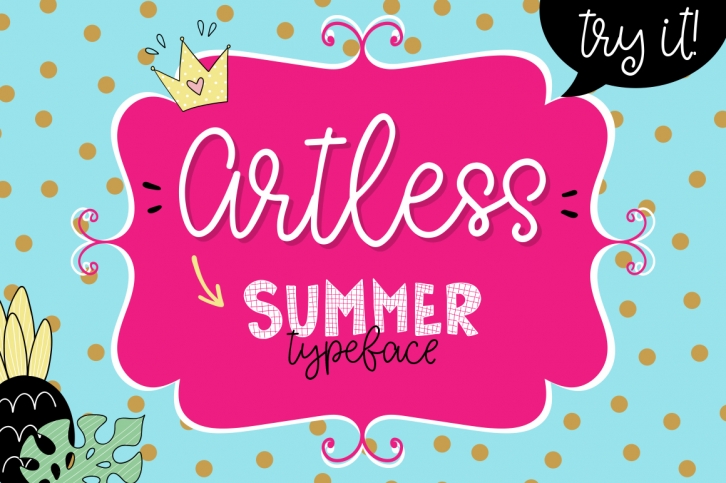
Artless Typeface is a trendy and unique font with an authentic style. It was designed by Qilli and it's a great choice for creative people who need such a font. It was released on April 24, 2017 and the file size is 15.8 MB. Artless Typeface will add an organic vibe to any design idea!